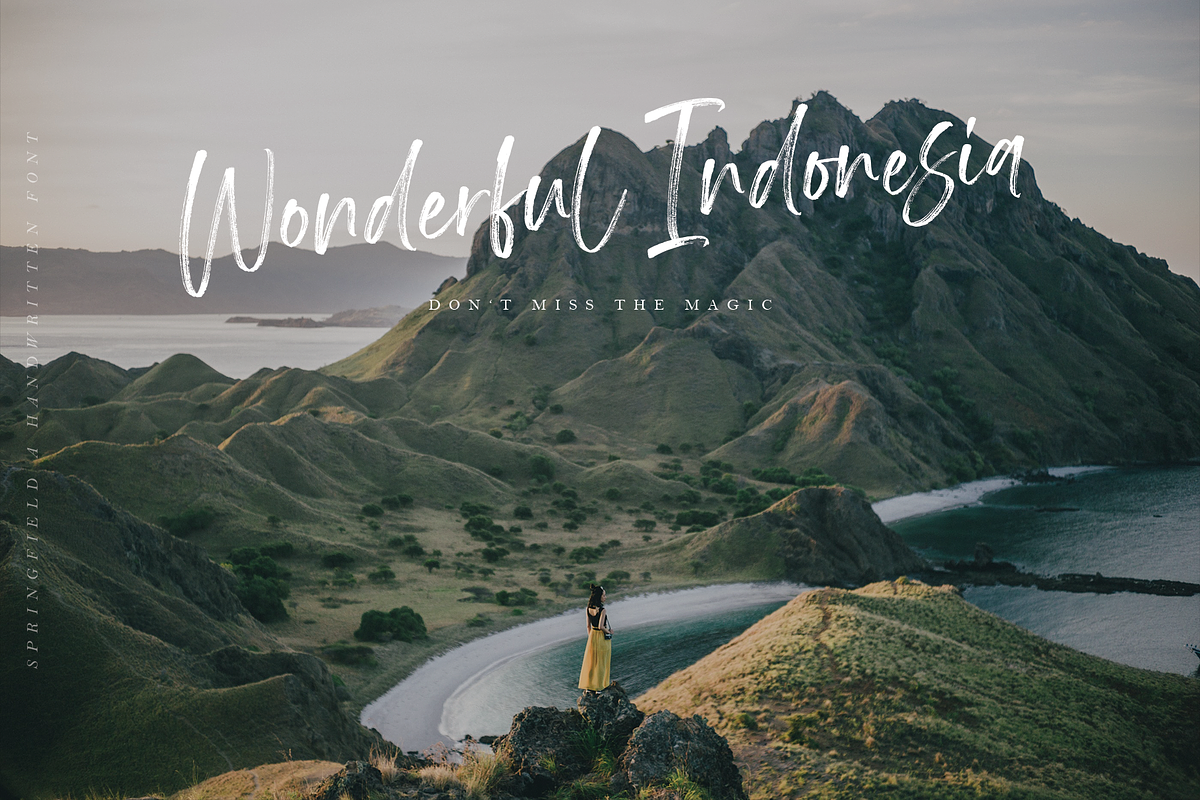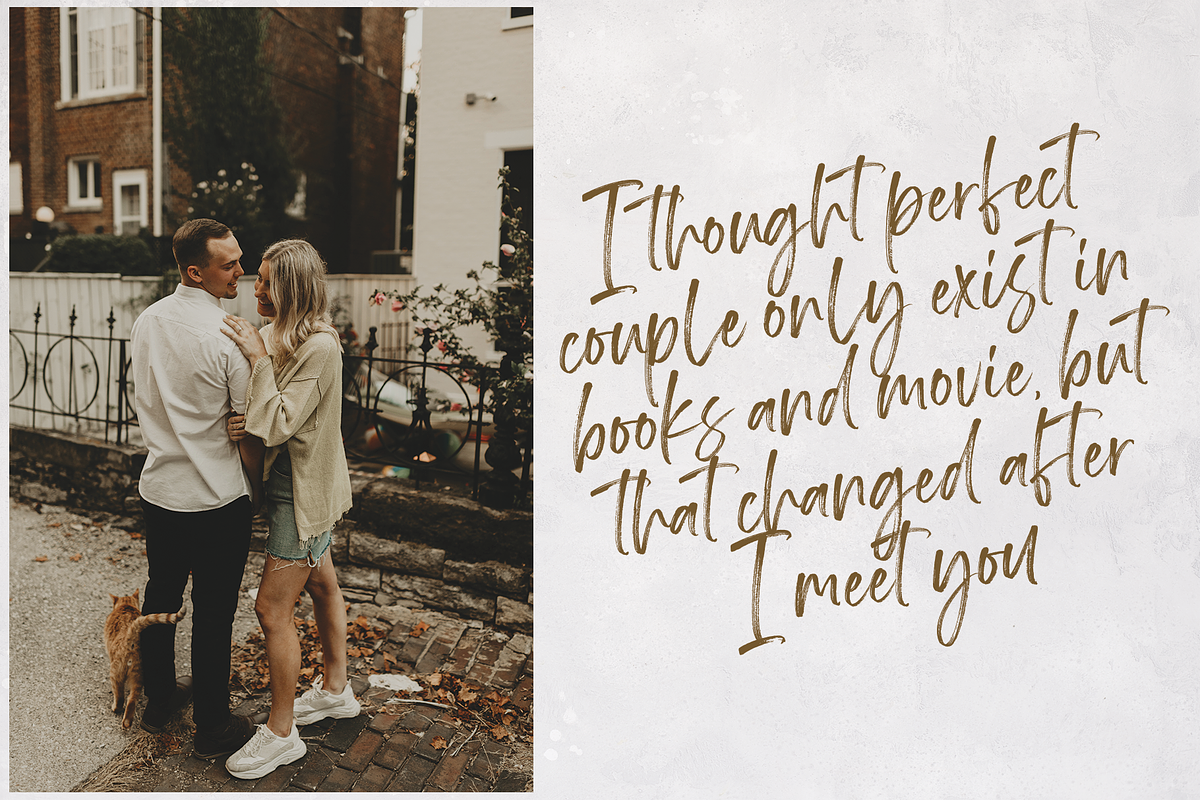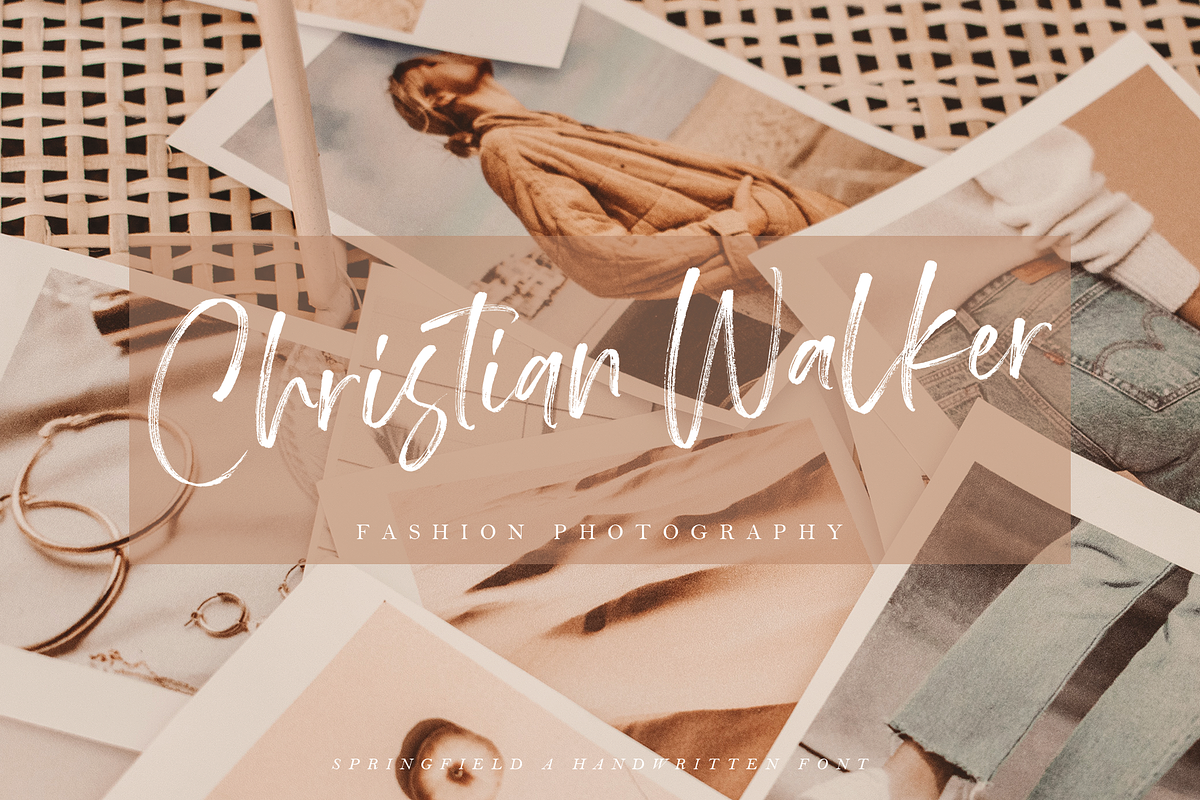
Springfield Font
Springfield is a handwritten font with a strong texture character. It is made by handwriting directly on the paper with a coarse type brush, to produce a strong and consistent texture.
It has a total of 4 lowercase alternatives. not only that, some letters even have 5-6 lowercase alternatives that you can change as you wish. and additional slant fonts that are great for changing your writing style to make it look more slanted and stronger.
Springfield can also be used for various projects such as stationery invitations, social media, logos, weddings, branding, graphic design with additional swashes. and can be combined with various types of serif fonts to perfect the project you want to work on.